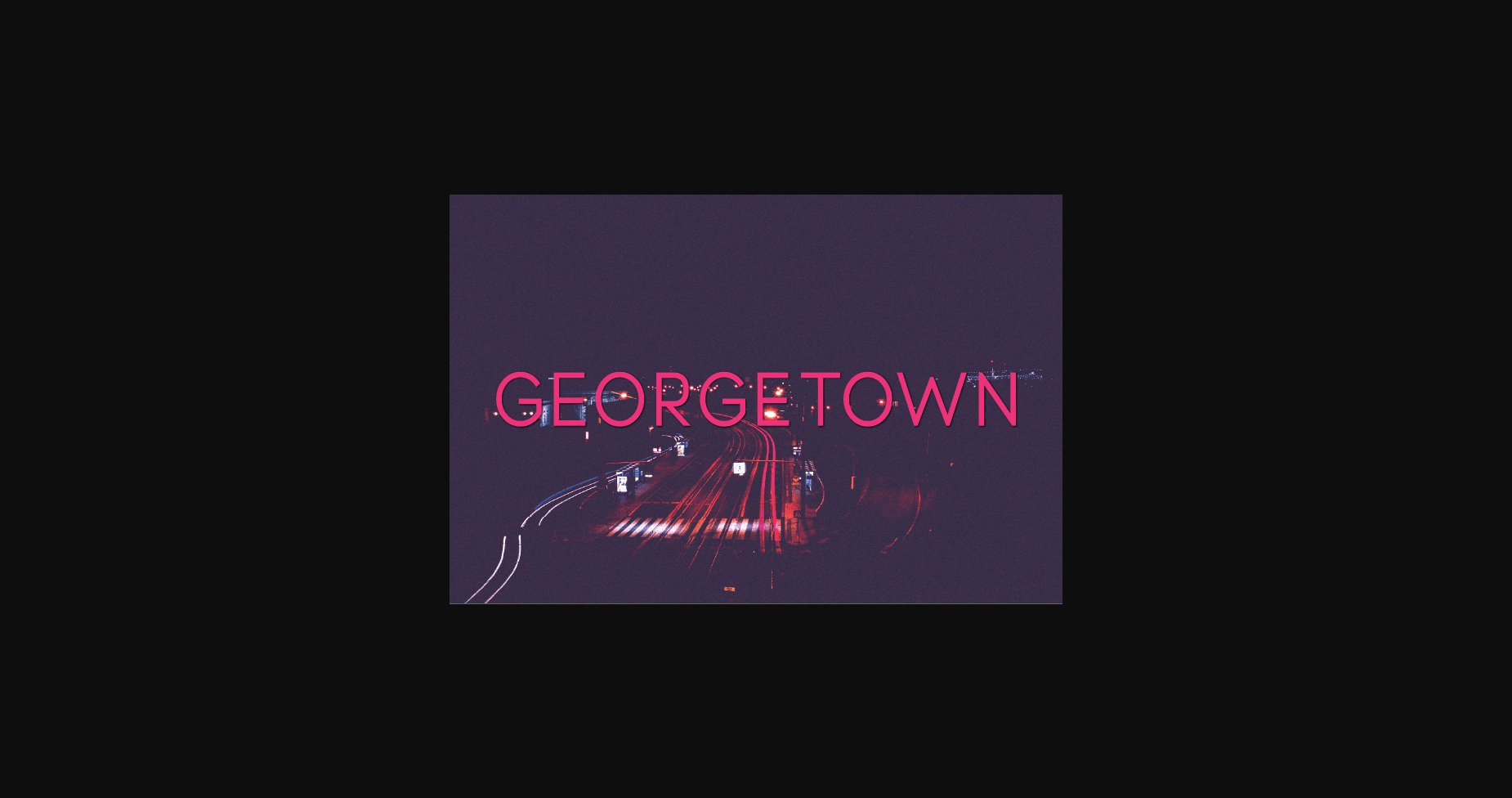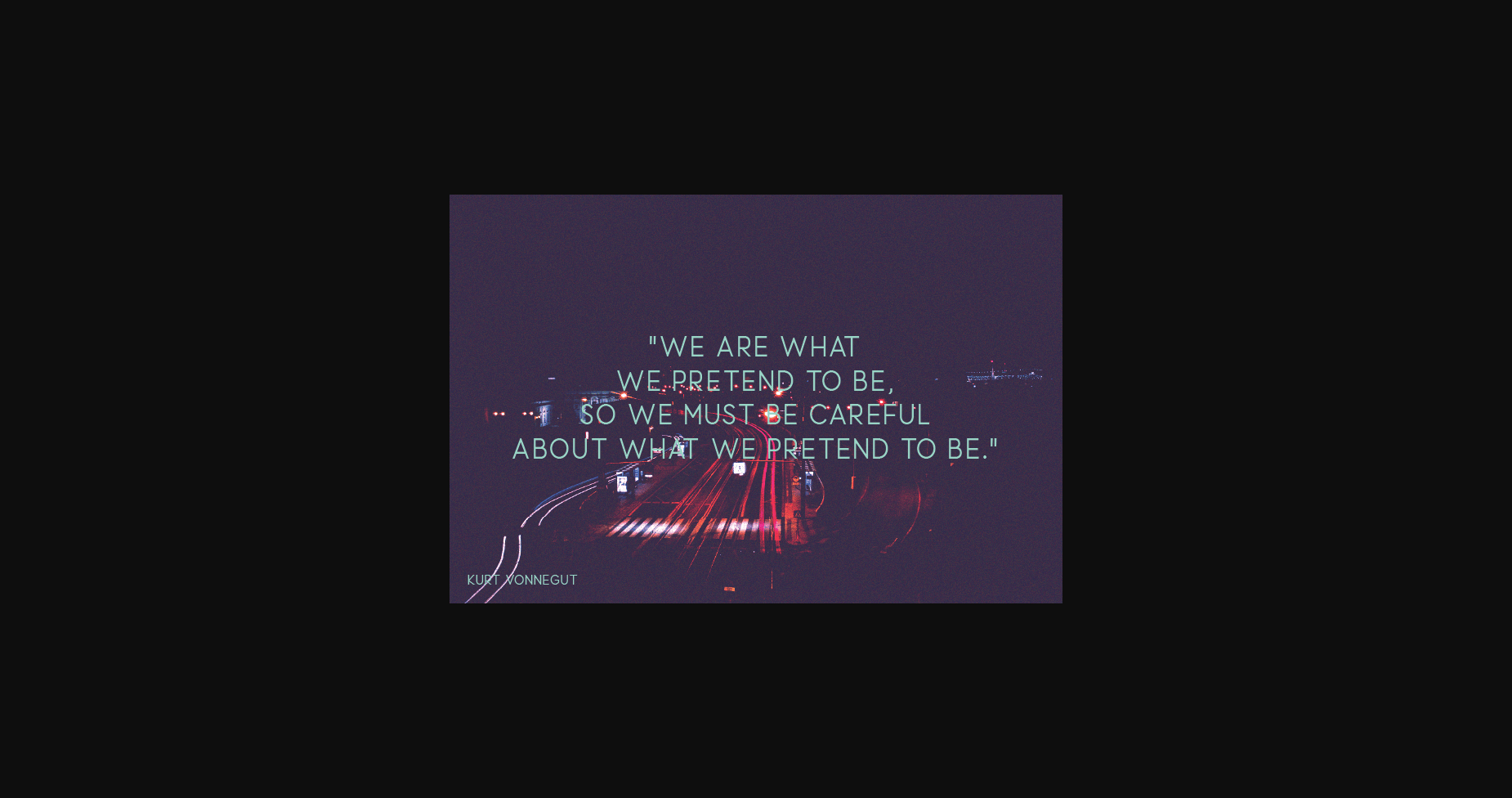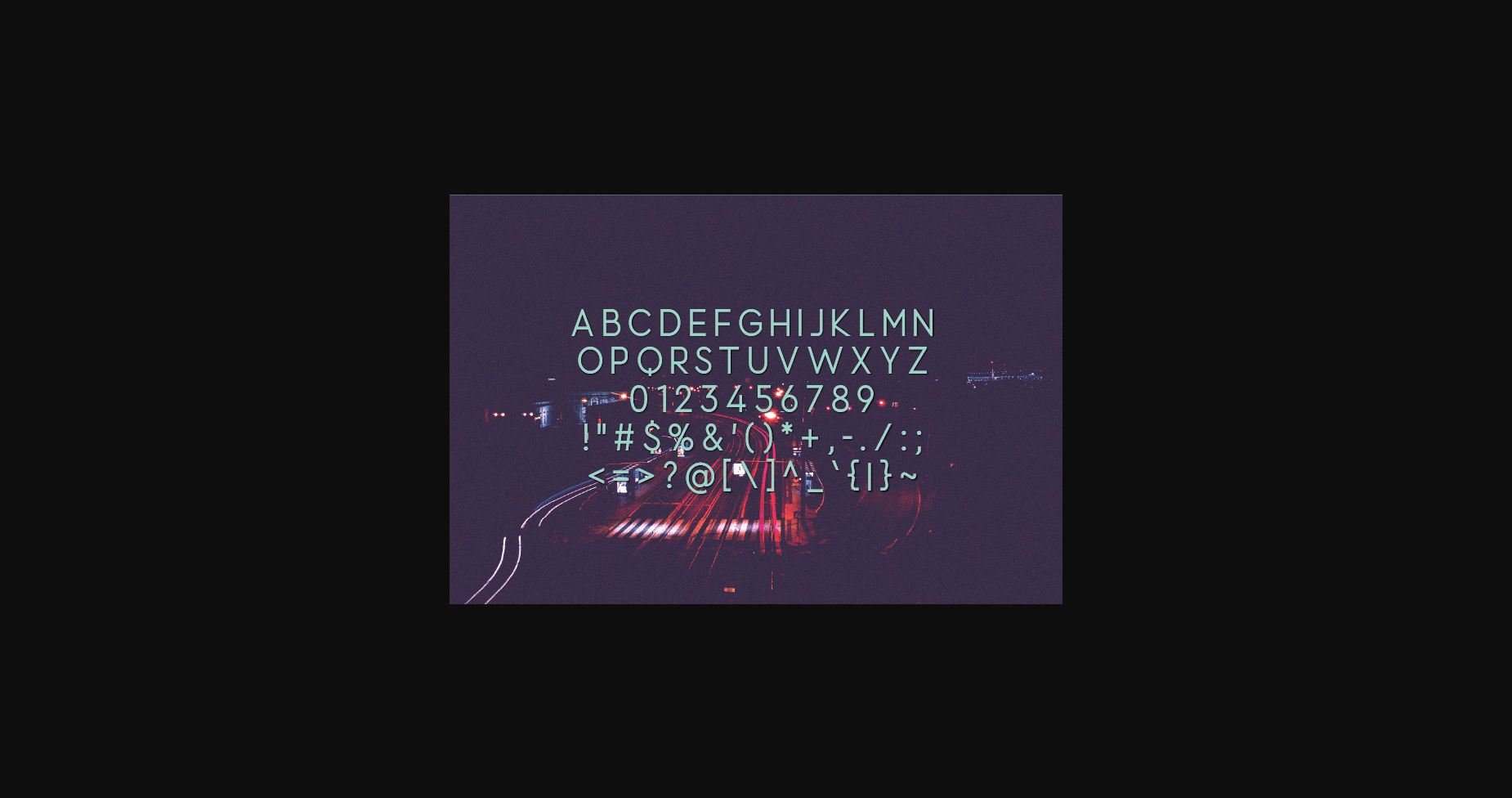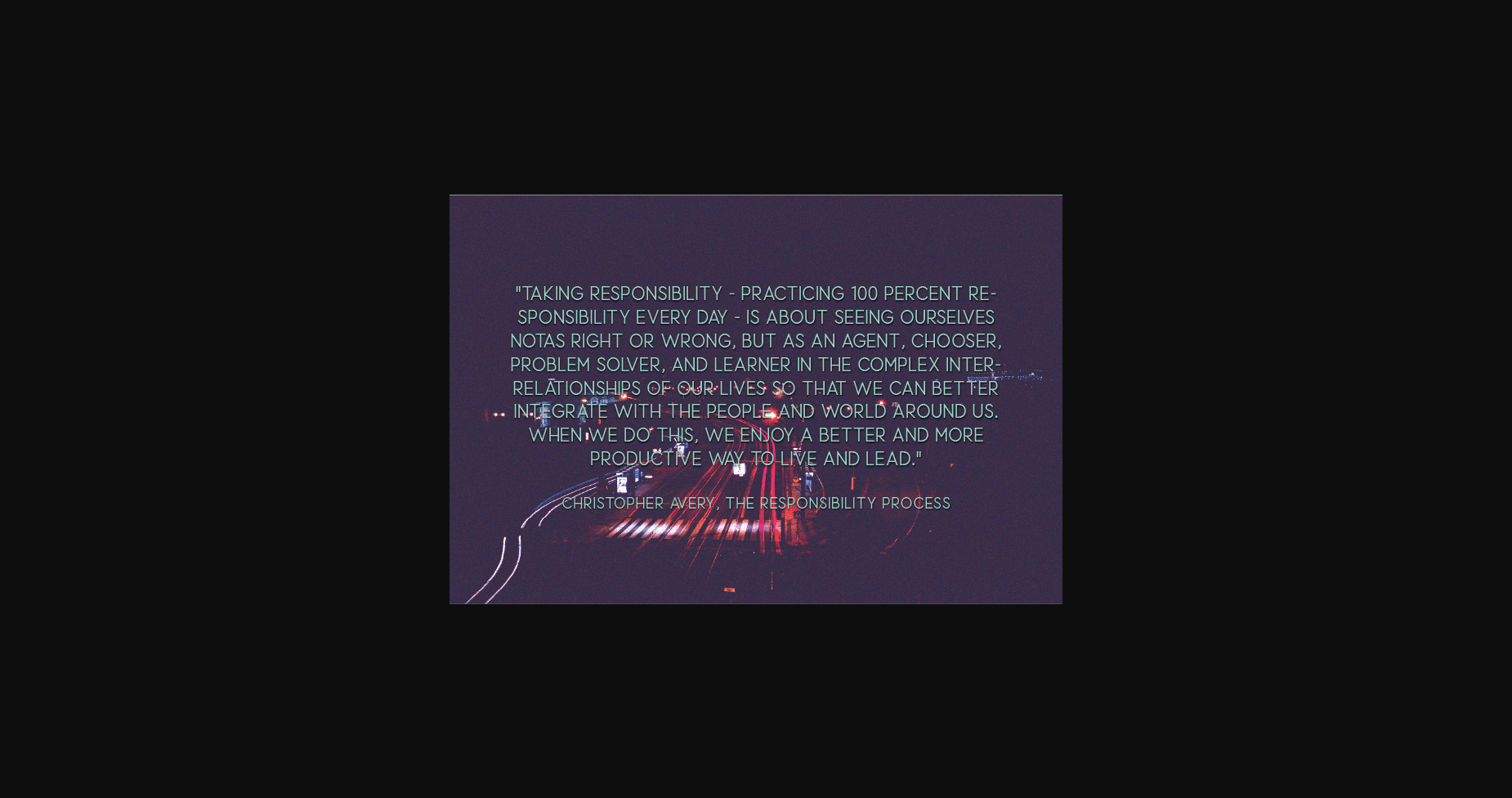
Georgetown Font
About Georgetown Font
Georgetown is a modern and classy sans serif font. Extremely versatile and unique, it is perfect for logos, weddings, invitations, quotes, advertisements, prints, magazines, and more! Add it now to each of your creations, and make them outstanding!